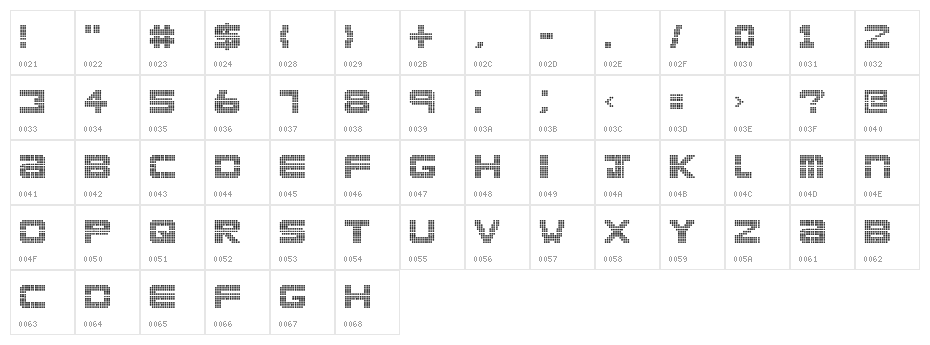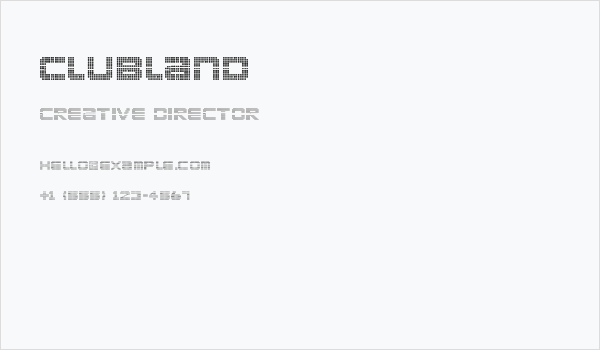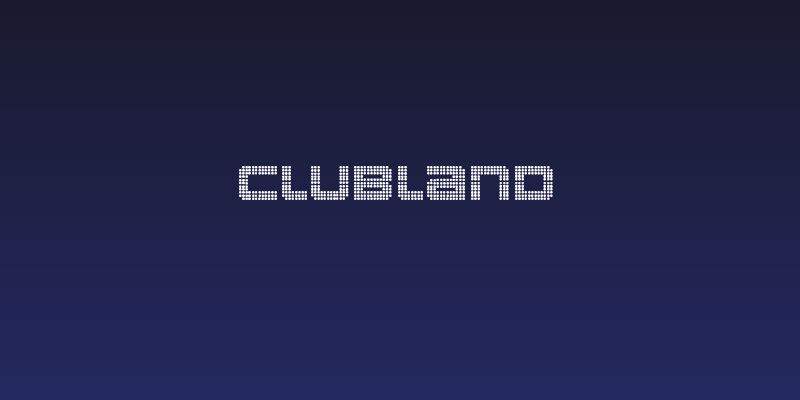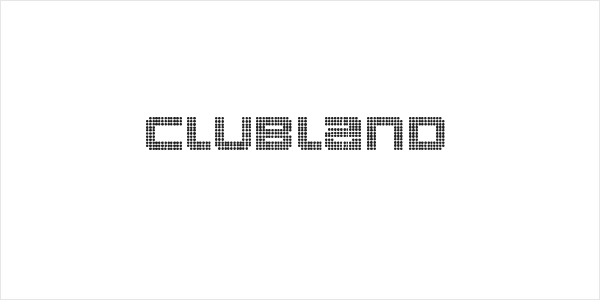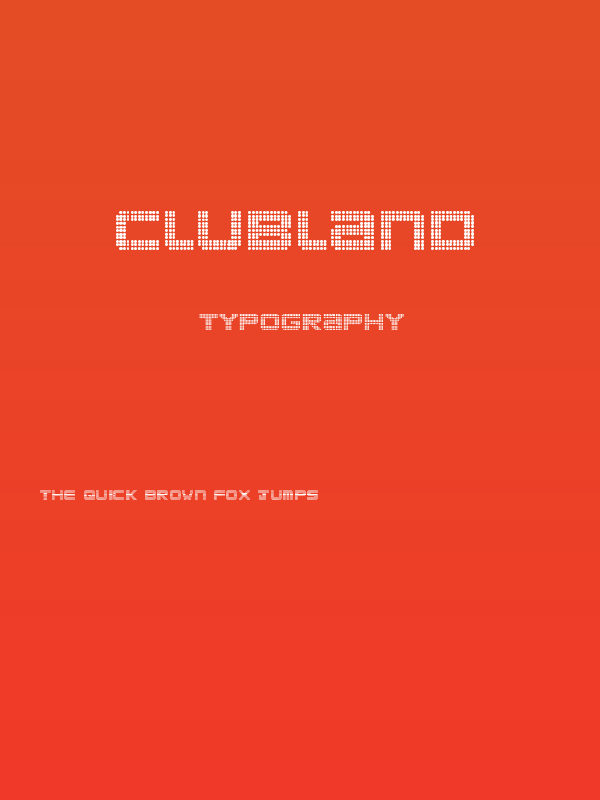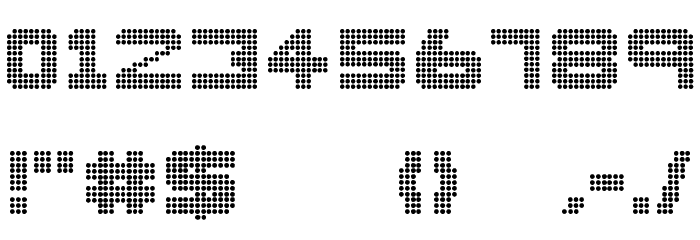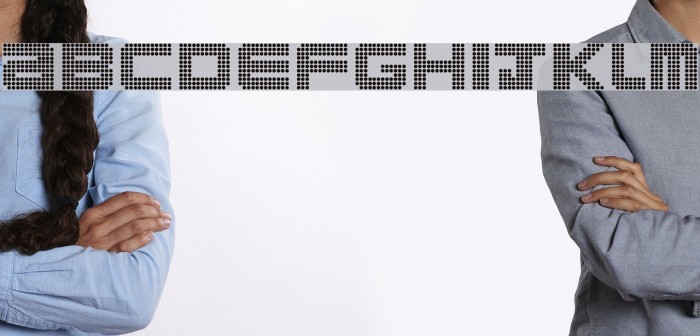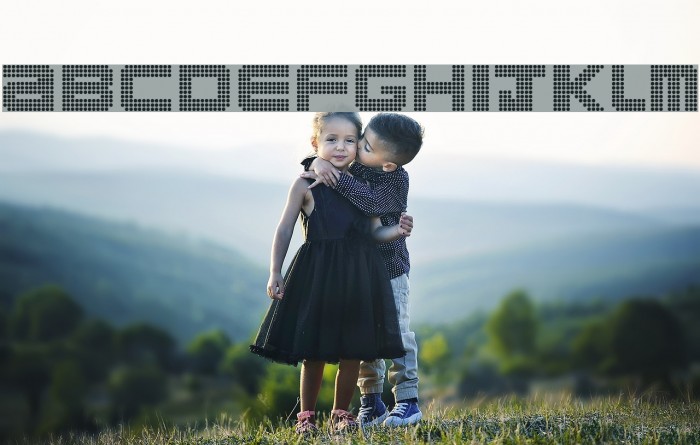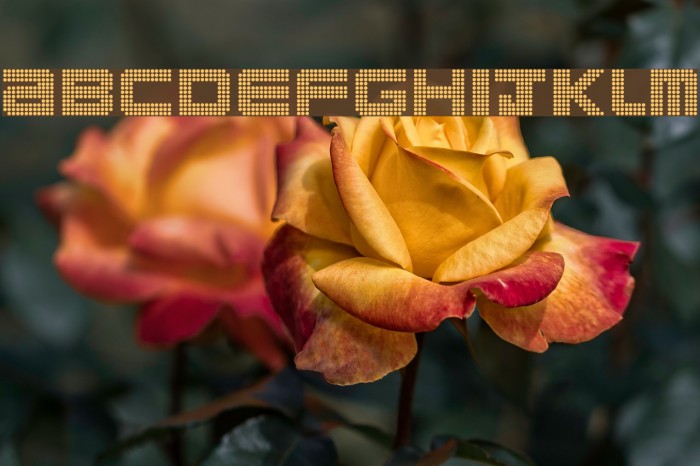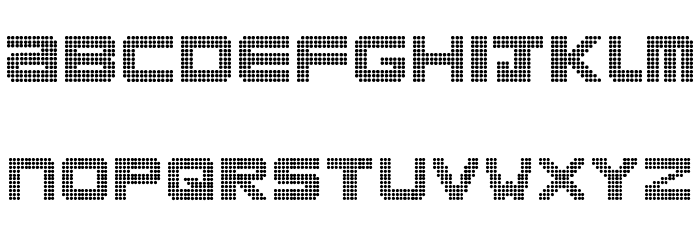
Clubland Font
Clubland Description
This font features a unique dotted pattern that forms each character, giving it a digital and futuristic appearance. The letters are composed of small, evenly spaced dots, creating a grid-like effect. This design is consistent across uppercase, lowercase, numbers, and special characters, providing a cohesive look. The font's geometric structure and uniformity make it stand out, while the dot matrix style evokes a retro digital display, reminiscent of early electronic devices. Its distinct style is both playful and modern, making it suitable for creative and tech-oriented projects.
| Proposed Projects | Ideal for digital art, tech branding, event posters, and retro-themed designs. |